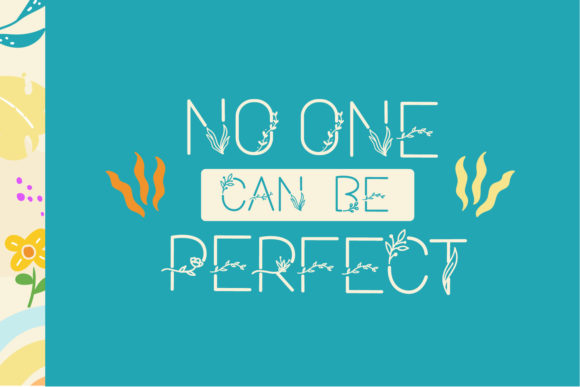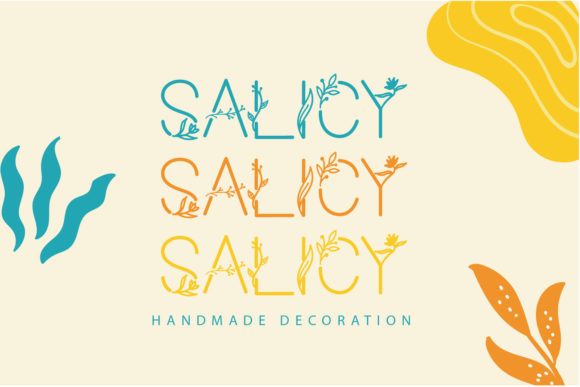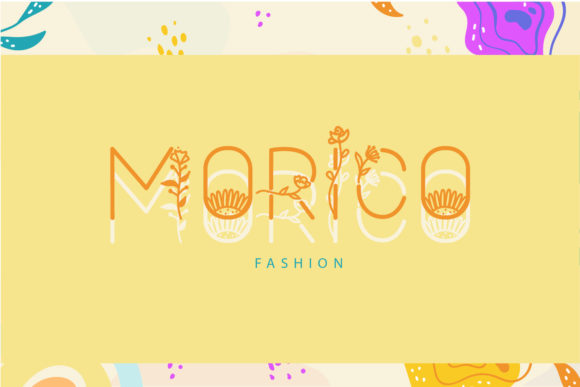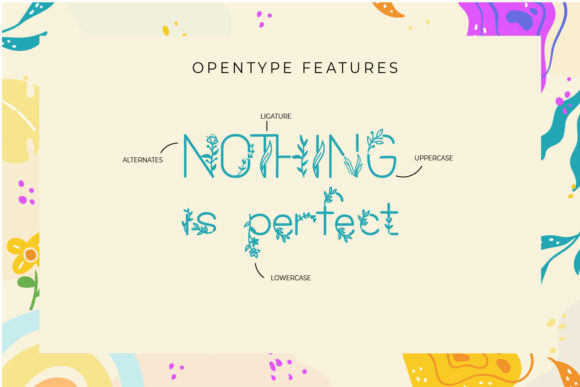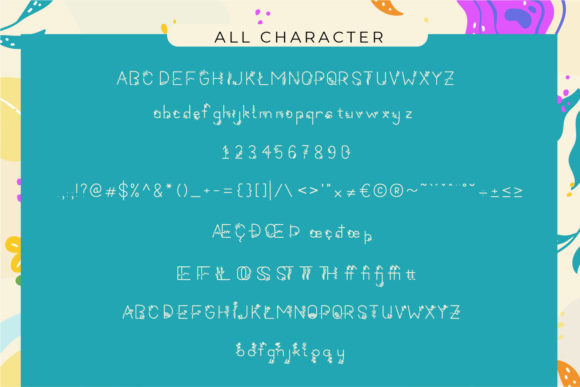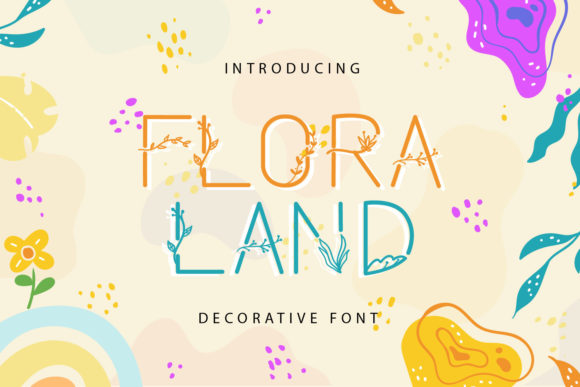
The Designer’s Delight: Floraland Font
I’ll never forget the time I was working on a branding project for a new boutique hotel. I had spent hours pouring over design boards, color palettes, and mood boards, but something was missing. The font I had chosen just wasn’t doing justice to the elegant, whimsical vibe I was going for. That’s when I stumbled upon Floraland, a thin lettered and stylish decorative font that changed the game. In this article, I’ll share my love for Floraland, its features, and how to make the most of it in your designs.
An Honest Review of Floraland
So, what makes Floraland so special? Here are a few things I love about this font:
- ✨ PUA encoded: This means you can access all glyphs and swashes with ease, making it a breeze to add flair to your designs.
- ✅ Thin lettered and stylish: Floraland’s sleek, elegant lines make it perfect for designs that require a touch of sophistication.
- 🌈 Versatile: From branding and packaging to invitations and social media graphics, Floraland can adapt to any design need.
Of course, no font is perfect, and Floraland has a few quirks:
- 🤔 Some letters may appear too thin for certain design applications, such as body text or small captions.
The Story Behind Floraland
Floraland was designed with the intention of creating a beautiful, elegant font that could bring a touch of whimsy to any design. Its creator was inspired by the intricate details and patterns found in nature, combined with a passion for typography. The result is a font that’s both stylish and versatile.
| Is Floraland suitable for body text? | While Floraland is a beautiful font, its thin lettering may not be suitable for body text or small captions. It’s best used for headlines, titles, or short paragraphs. |